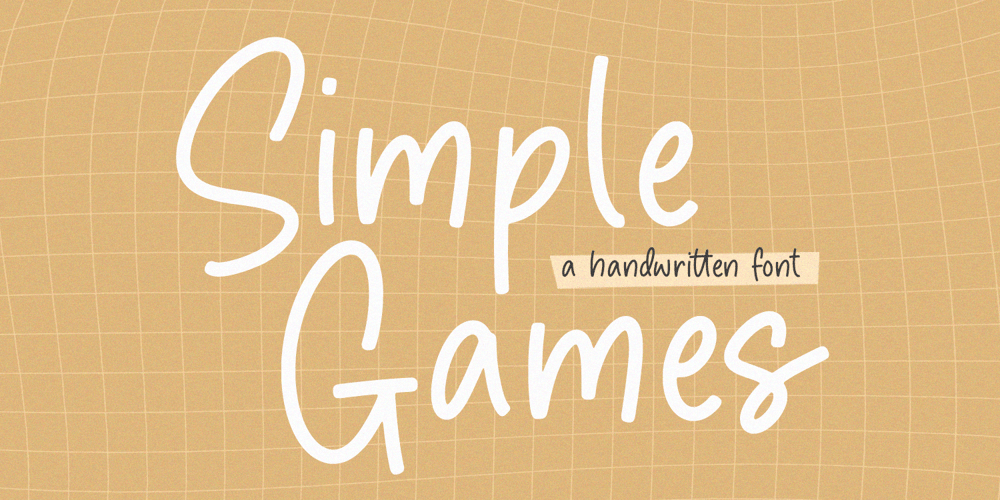
Simple Games
Simple Games font
Simple Games Font Family was designed by Wara Sigit Tri Pamungkas and published by Timurtype. Simple Games contains 1 styles and family package options. Introducing by Timur typeProudly Present, Simple Games A Handwritten Script FontSimple Games is perfect for product packaging, branding project, megazine, social media, wedding, or just used to express words above the background.Aesthetica also multilingual support.Enjoy the font.Thank you!